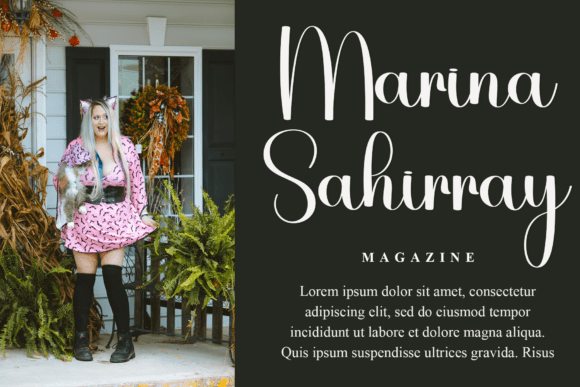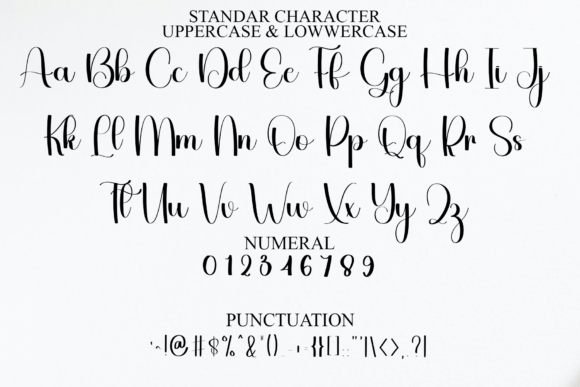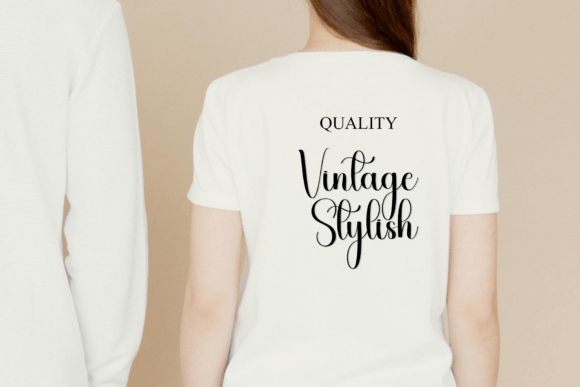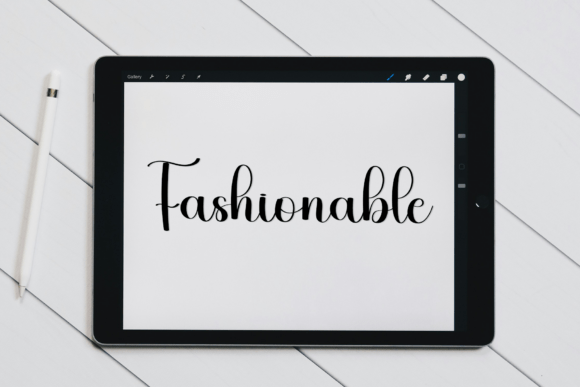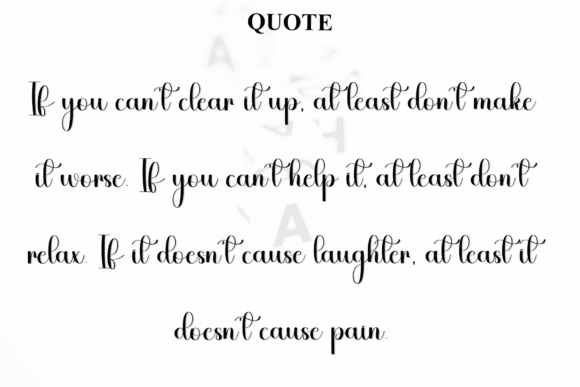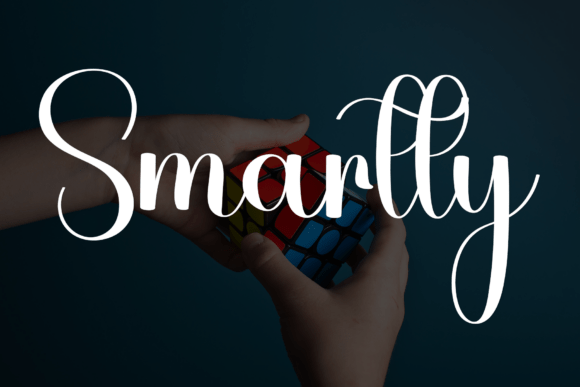
Introduction to Smart Chubby Font
Smart Chubby is a casual and creative font that exudes warmth and friendliness.
Key Features of Smart Chubby Font
Why Choose Smart Chubby Font?
Smart Chubby Font offers exceptional quality and versatility, making it a valuable addition to your design toolkit. Whether you’re creating for personal projects or commercial use, Smart Chubby Font delivers professional results.